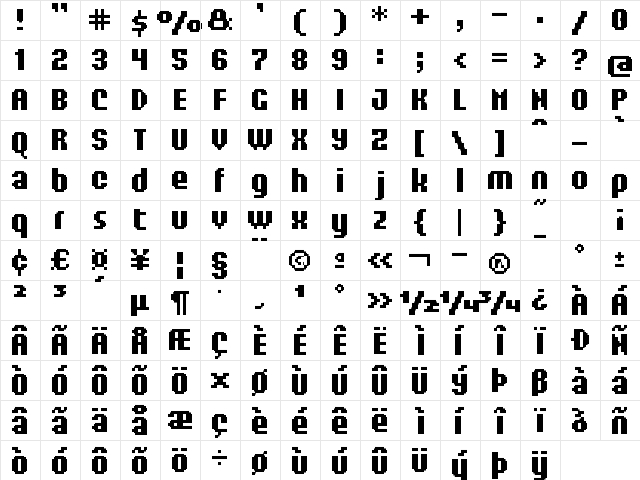
UF California Bold Regular
| Foundry | Ultrafonts |
| Designer | Miguel Hernதez |
Design Context for UF California Bold Typeface
UF California Bold is a composed and adaptable typeface that performs quietly and consistently across a wide range of design contexts. The heavy weight commands attention and anchors typographic hierarchies.